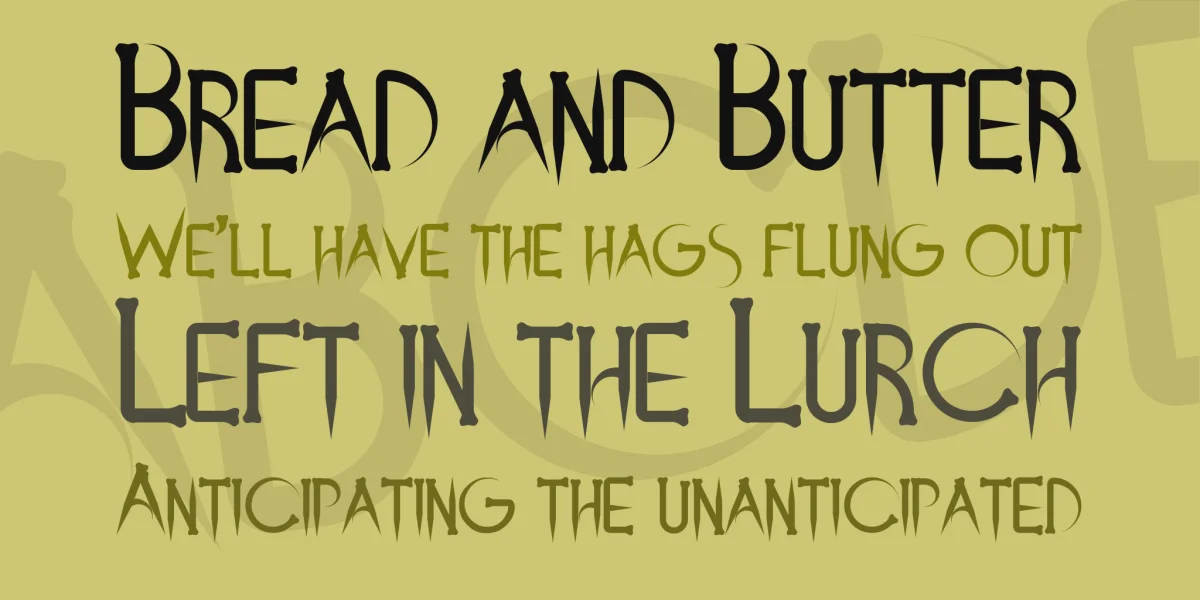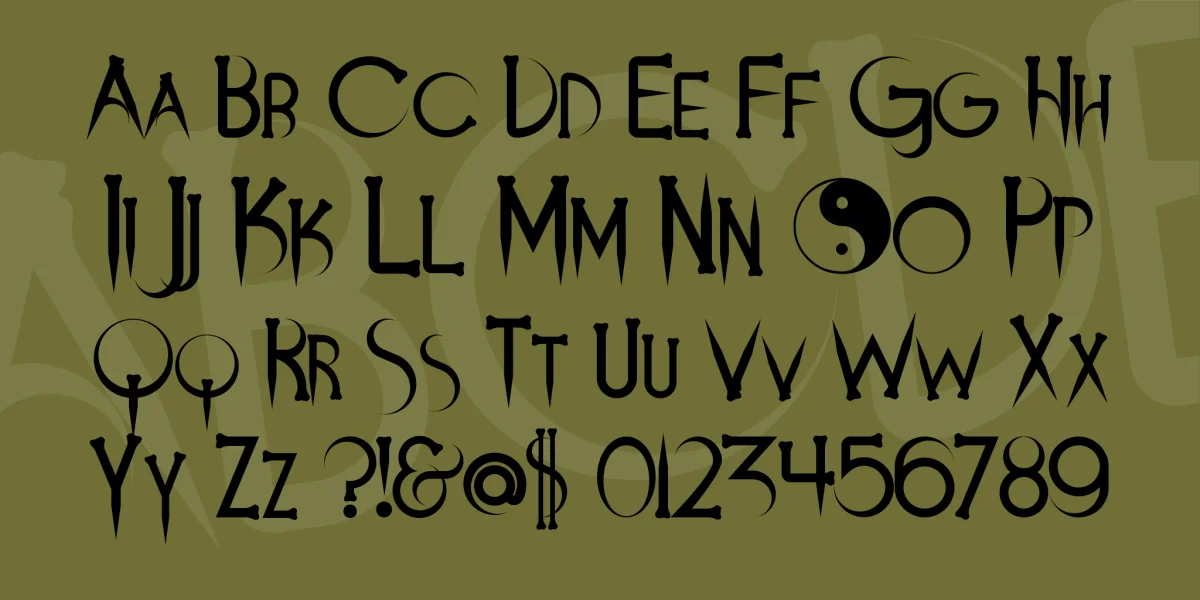
Demons & Darlings Font by Chad Savage. Created 2007 for the Chicago promotions company & community Demons & Darlings. This is a free font, and I mean FREE. Use it however you want, for whatever you want. If you make something cool with it, I'd love to see it - email me at  and tell me about it. If you offer it for download on your own font site, PLEASE include this Read Me. That's not too much to ask, is it? This font is intended for specialty and graphic uses. It will look just awful if used in a paragraph format. For more free fonts and other downloadable goodies, visit www.sinisterfonts.com